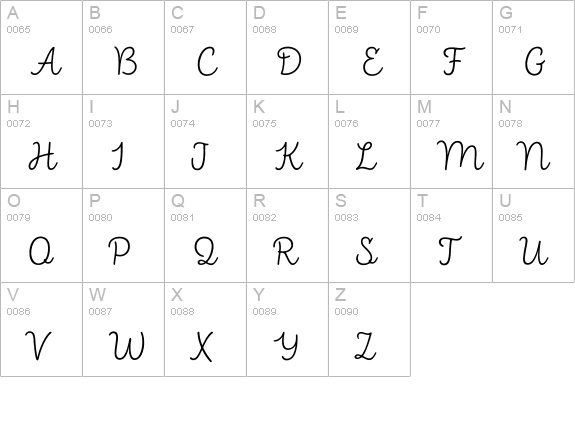
Intro Script L Base Font Details
Intro Script L Base font is a stunning and elegant typeface that exudes sophistication and charm. With its flowing and graceful script style, this font is perfect for adding a touch of class to your designs. Whether you're working on invitations, branding materials, or any other creative project, Intro Script L Base font will surely make a statement. The best part about Intro Script L Base font is that it is free to download at FontsMarket.com. This means that you can easily access this beautiful font and use it in your projects without any cost. Don't miss out on this amazing opportunity to elevate your designs with the timeless beauty of Intro Script L Base font. Download it today and let your creativity soar.